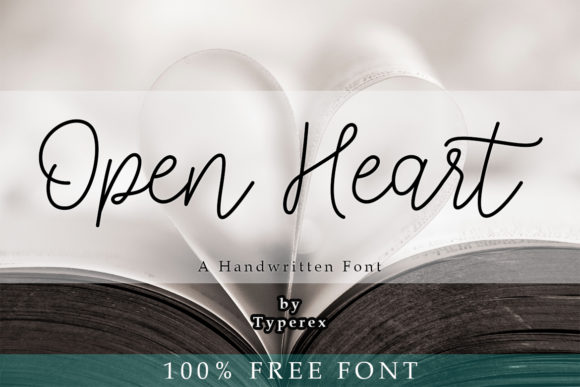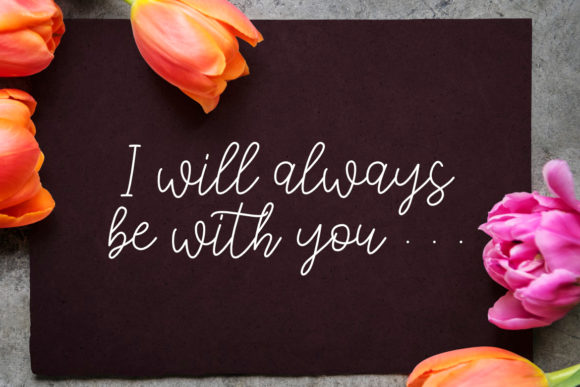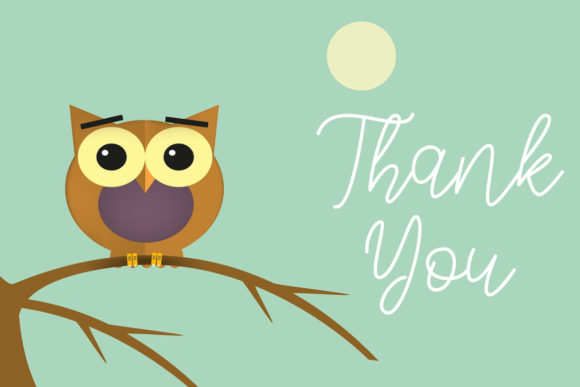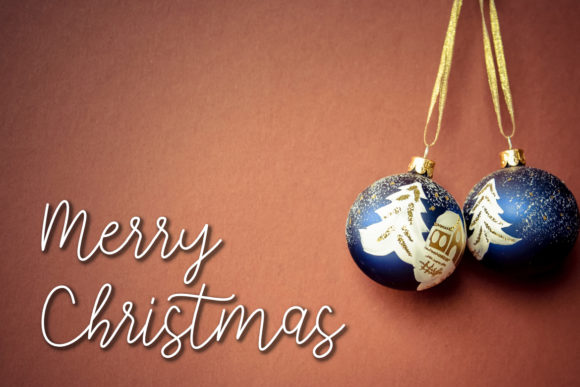
Open Heart
About Open Heart Font
Open Heart feels equally charming and elegant. It looks stunning on wedding invitations, thank you cards, quotes, greeting cards, logos, business cards and every other design which needs a handwritten touch.